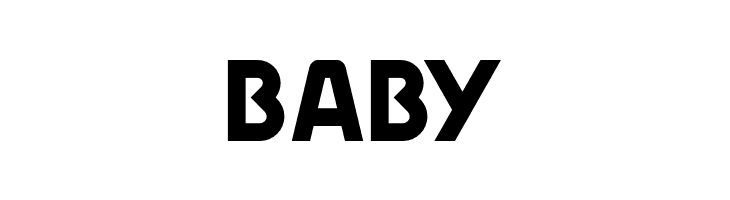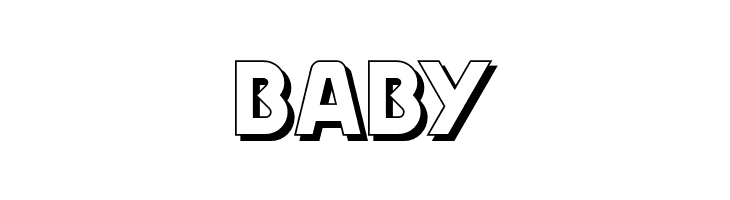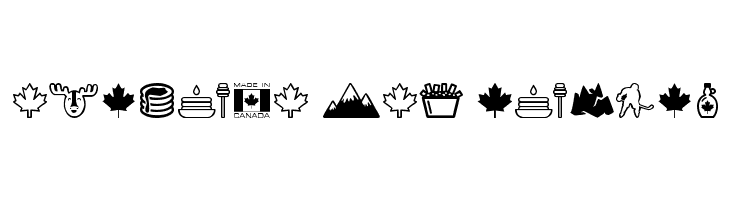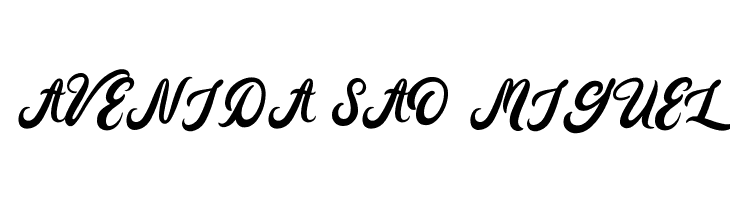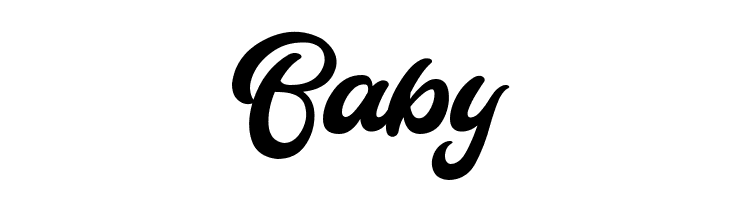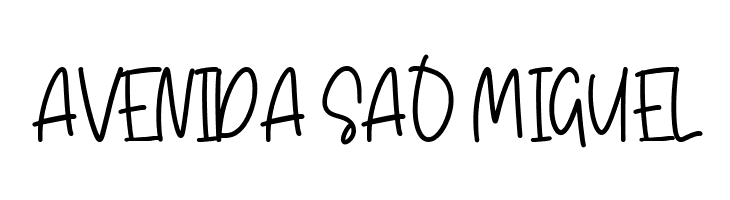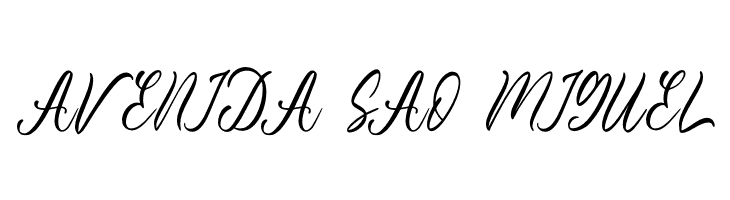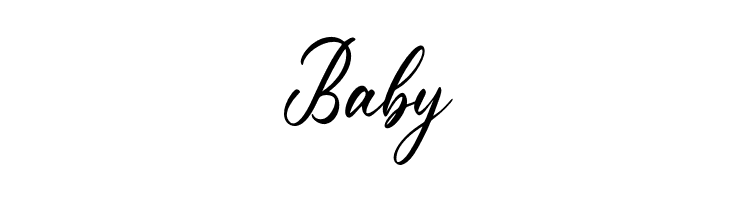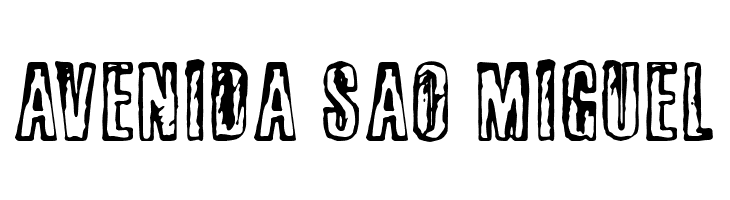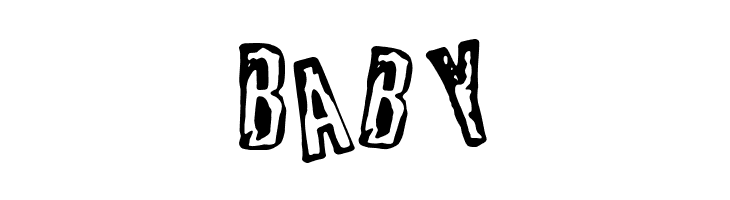
A thin, modern font with geometric shapes and consistent line thickness.
A sleek, thin, and elegant italic font with a modern and sophisticated style.
A bold, modern sans-serif font with geometric influences and excellent readability.
A bold, geometric font with a playful, stencil-like style.
A bold, playful font with a 3D effect and geometric style.
A bold, playful, hand-drawn font with a dynamic and energetic feel.
A bold, playful, hand-drawn font with a cartoonish and energetic style.
A bold, distressed font with a grunge, textured style.
A bold, distressed font with a grunge, hand-drawn aesthetic.
A modern script font with flowing lines and rounded edges.
A lively, cursive handwritten font with smooth, connected letters.
A playful, bold handwritten font with rounded edges and a casual style.
A whimsical, decorative font with jagged, irregular strokes and a mystical appearance.
A bold, hand-drawn font with an artistic and playful style.
A bold, playful font with a bubbly, blocky design.
A bold, playful font with a bubbly, enclosed design.
A distressed, grunge-style font with bold, irregular characters.
A playful, bold font with a hand-drawn, three-dimensional style.
A modern, geometric font with bold, structured characters.
A bold, modern font with high contrast and elegant, condensed uppercase letters.
A bold, angular font with a graffiti-inspired, urban aesthetic.
A sophisticated, elegant handwritten font with fluid, cursive strokes.
A flowing, cursive script font with elegant, connected strokes.
A bold, flowing script font with elegant curves and a cohesive style.
A playful, casual handwritten font with a dynamic and informal style.
A bold, decorative font with ornate frames and a vintage flair.
A hand-drawn, rough font with a dynamic and energetic feel, reminiscent of graffiti.
A Canada-themed icon font with bold, simple pictograms.
A bold, textured font with a hand-drawn, artistic style.
A playful handwritten font with smooth, rounded strokes and a casual style.
A playful, handwritten script font with smooth, flowing lines.